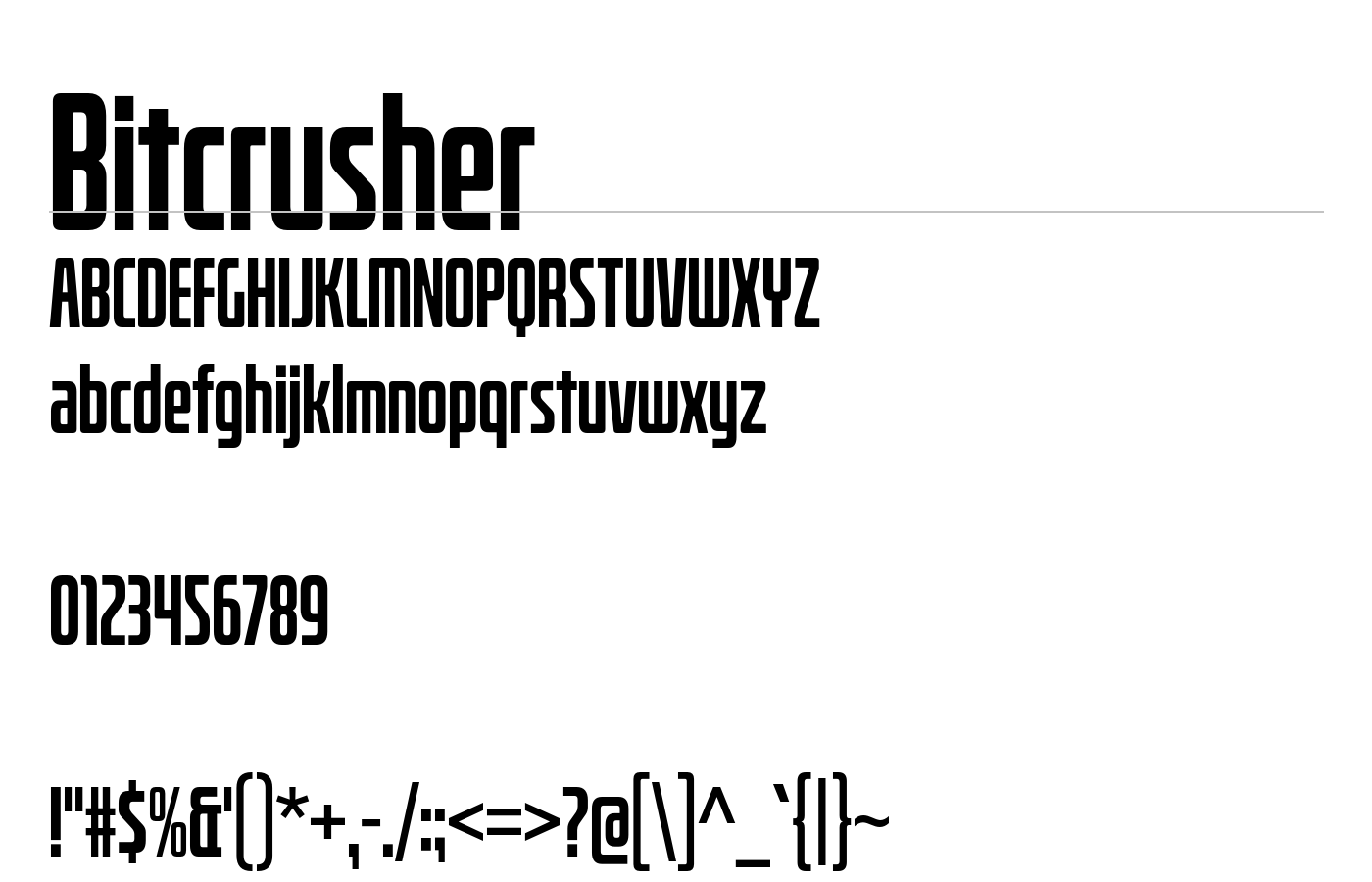
Bitcrusher is a bold, condensed sans serif font with a modern, industrial feel. Its tall, narrow letterforms and uniform stroke weight create a powerful and impactful look, perfect for attention-grabbing headlines and branding. This font works well in futuristic or tech-inspired designs, offering a sleek, edgy character that stands out in digital and print media alike.
Bitcrusher Font
About Bitcrusher Font
| Font family | Bitcrusher Font |
| Designer | Ray Larabie |